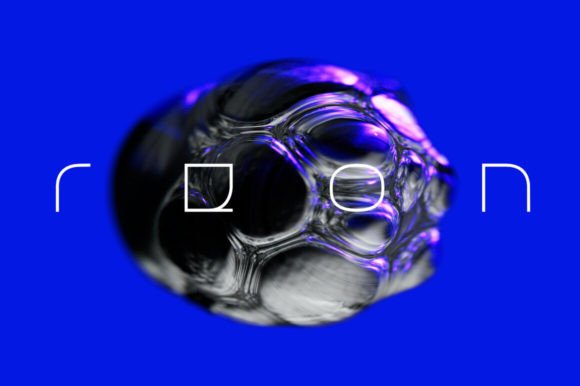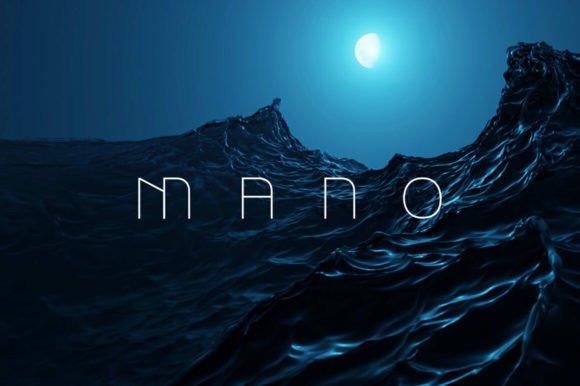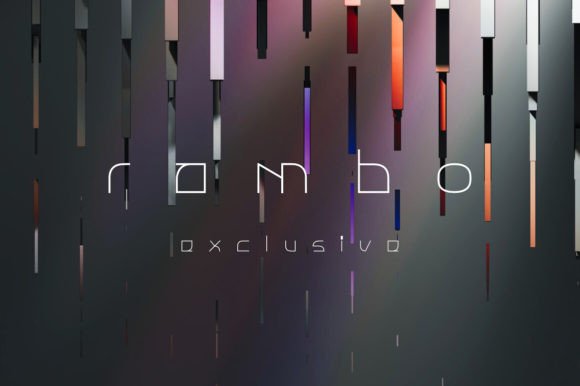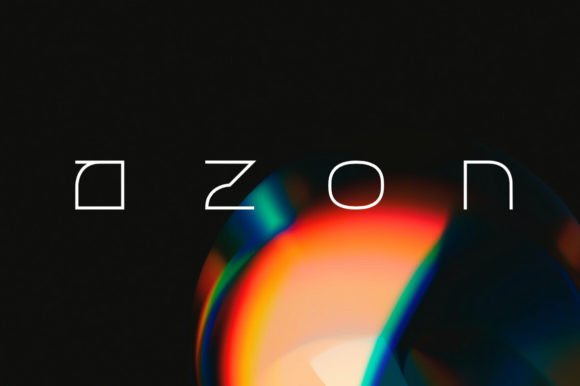
Introducing Ahonde Font: The Ultimate Digital Display Typeface
Ahonde is a sleek and futuristic display font that embodies the perfect fusion of pixels and precision, where style finds its digital voice. This cutting-edge typeface is meticulously designed to elevate your digital presence, ensuring every word speaks volumes. In this article, we’ll dive into the world of Ahonde Font, exploring its features, benefits, and uses, making it a must-read for designers and crafters alike.
The Birth of Ahonde Font
Ahonde Font is the brainchild of a team of innovative designers who sought to create a typeface that would revolutionize the digital landscape. With a keen eye for detail and a passion for innovation, they crafted Ahonde to be a font that not only looks stunning but also communicates effectively. The result is a sleek, modern, and highly legible font that is perfect for digital displays, headings, and titles.
Key Features of Ahonde Font
- Sleek and Futuristic Design: Ahonde boasts a futuristic design that is both sleek and sophisticated, making it perfect for brands and designers looking to make a statement.
- Pixel-Perfect Precision: The font’s pixel-perfect precision ensures that it looks crisp and clear on digital displays, making it ideal for use on websites, mobile apps, and other digital platforms.
- High Legibility: Ahonde’s careful design ensures that it remains highly legible, even at smaller font sizes, making it perfect for use in a variety of digital contexts.
- Versatile and Customizable: Ahonde comes in a range of styles and weights, allowing designers to tailor it to their specific needs and create a unique visual identity.
Benefits of Using Ahonde Font
So, why choose Ahonde Font for your digital projects? Here are just a few benefits of using this innovative typeface:
- Elevate Your Digital Presence: Ahonde Font is designed to help you stand out in a crowded digital landscape, ensuring that your brand or message gets noticed.
- Improve Readability: Ahonde’s high legibility ensures that your content is easy to read, reducing eye strain and improving user engagement.
- Increase Brand Recognition: Ahonde’s unique and futuristic design makes it an excellent choice for brands looking to establish a strong visual identity.
- Save Time and Effort: With Ahonde’s versatility and customizability, designers can save time and effort, focusing on other aspects of their project.
Using Ahonde Font in Your Designs
Ahonde Font is incredibly versatile and can be used in a variety of digital contexts, including:
- Web Design: Use Ahonde to create stunning website headers, titles, and other display text.
- Mobile App Design: Ahonde’s pixel-perfect precision makes it perfect for use in mobile app design, ensuring that your app looks great on a range of devices.
- Graphic Design: Ahonde can be used in a range of graphic design projects, from brochures and posters to social media graphics and more.
Ahonde Font is a game-changing display typeface that is sure to revolutionize the way you approach digital design. With its sleek and futuristic design, pixel-perfect precision, and high legibility, Ahonde is the perfect choice for designers and crafters looking to elevate their digital presence. Whether you’re working on a website, mobile app, or graphic design project, Ahonde Font is sure to make a lasting impression.